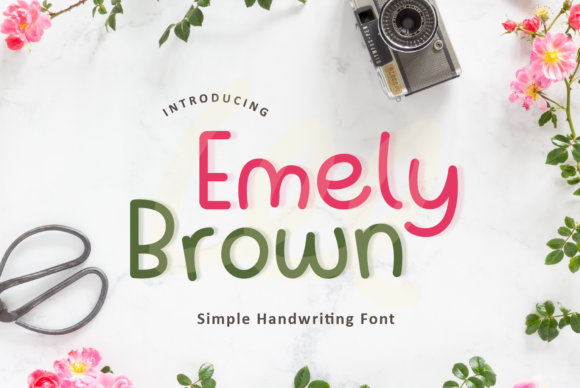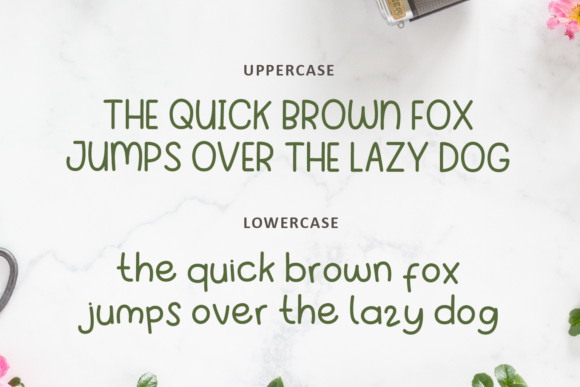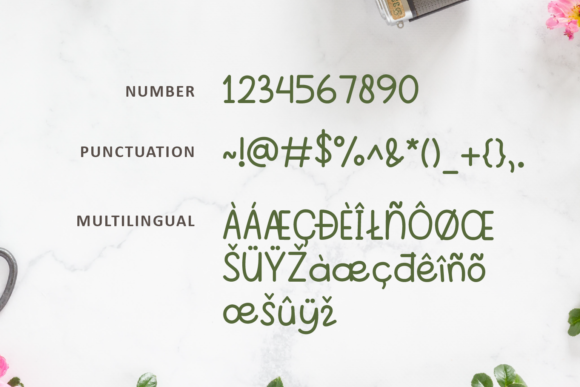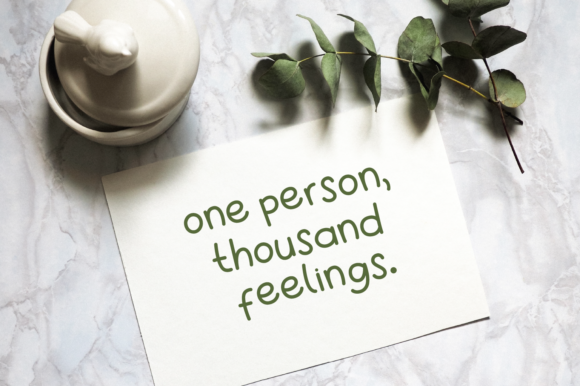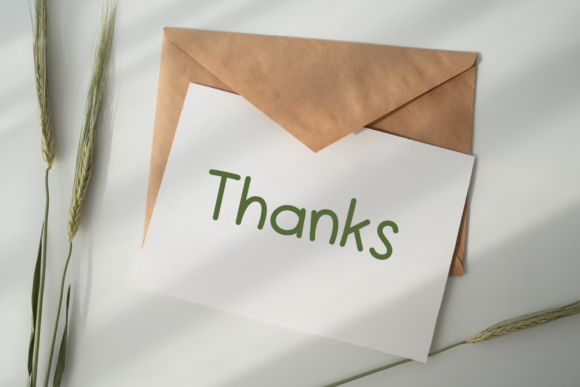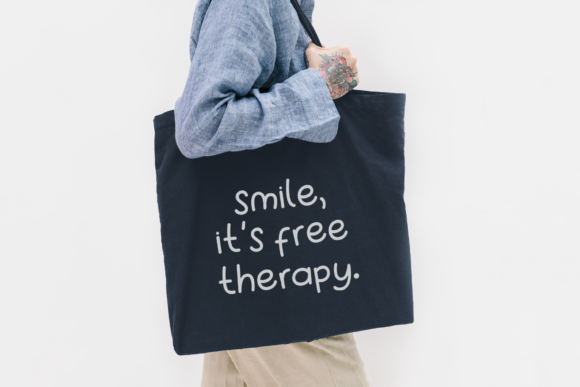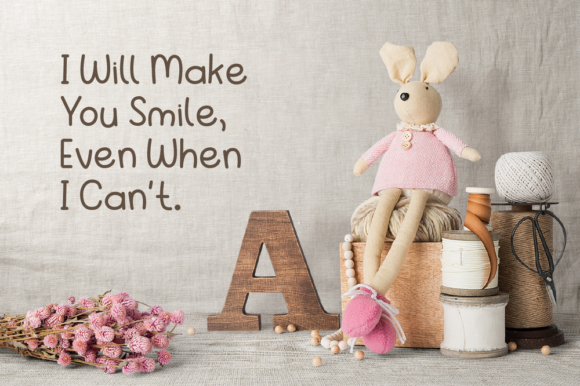
About Emely Brown Font
Emely Brown is a delicate, elegant and flowing handwritten font. It has beautiful and well balanced characters and as a result, it matches a wide pool of designs. Add it to your most creative ideas and notice how it makes them come alive!